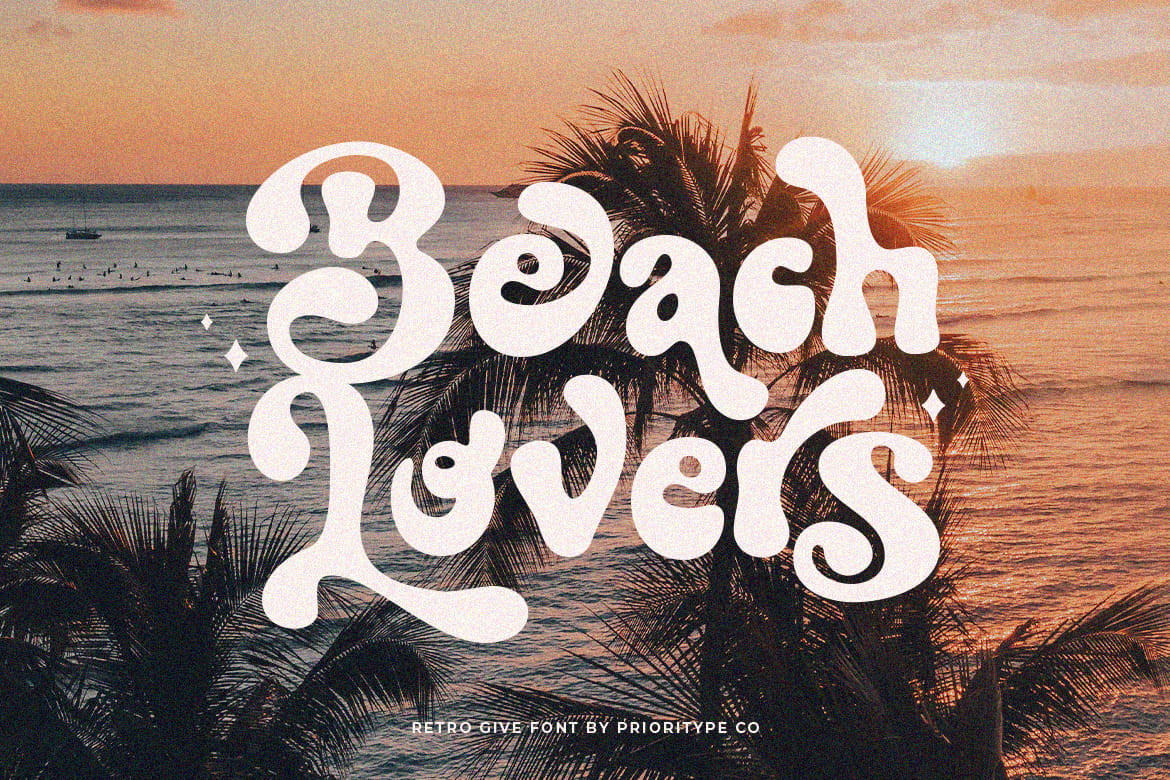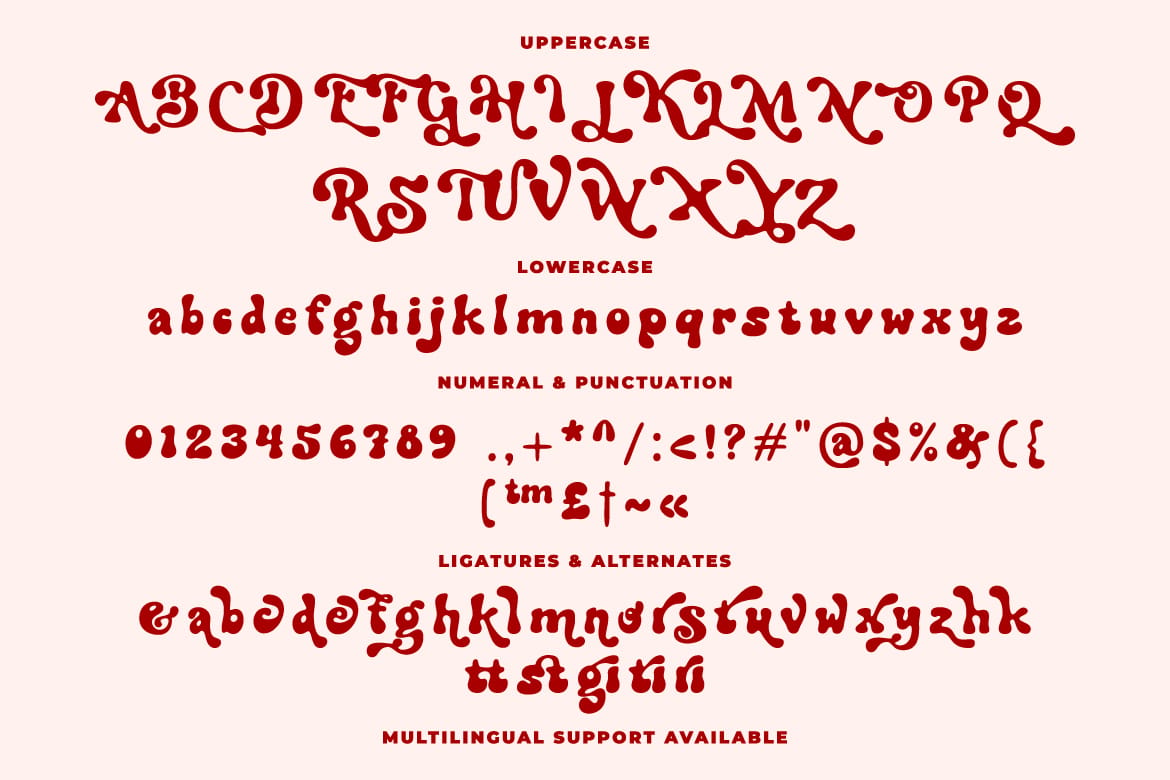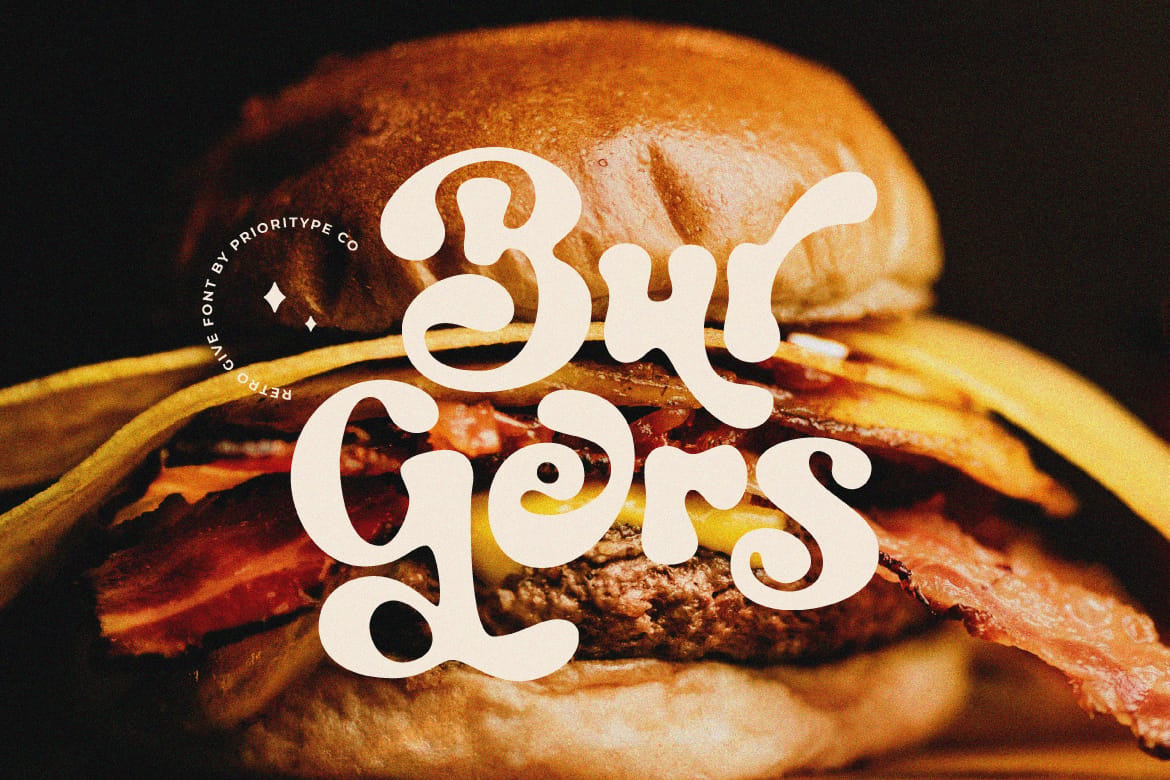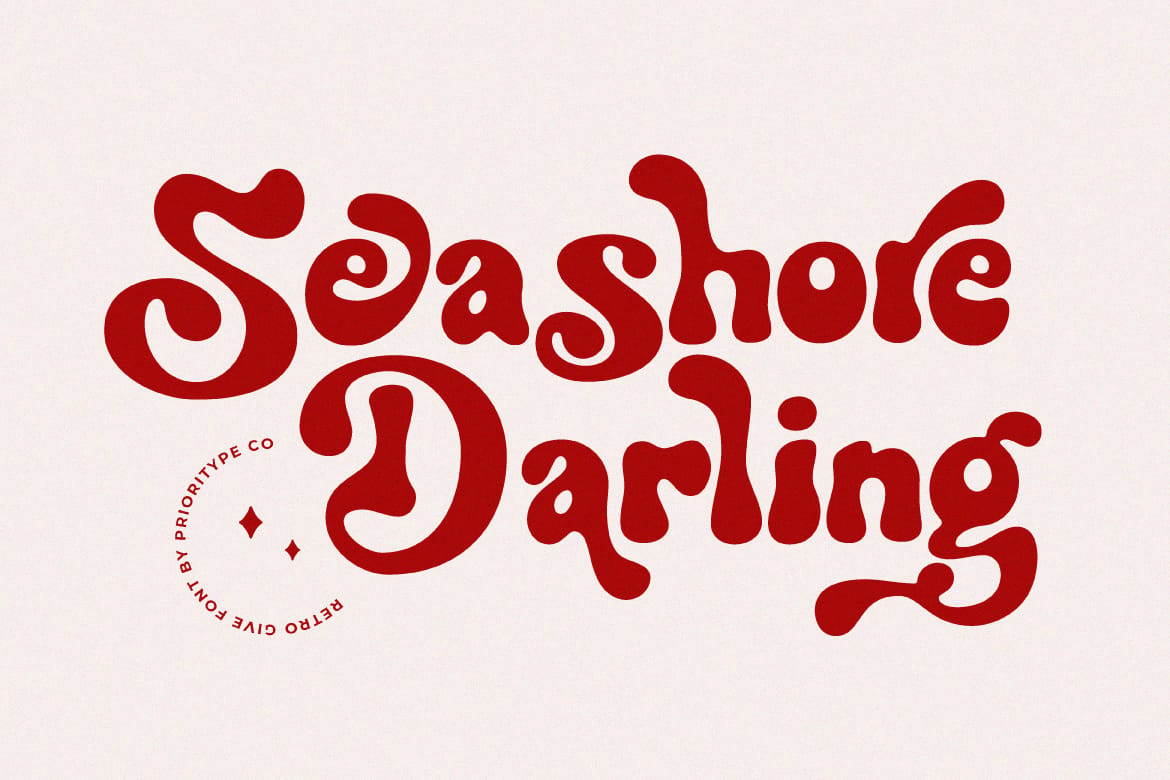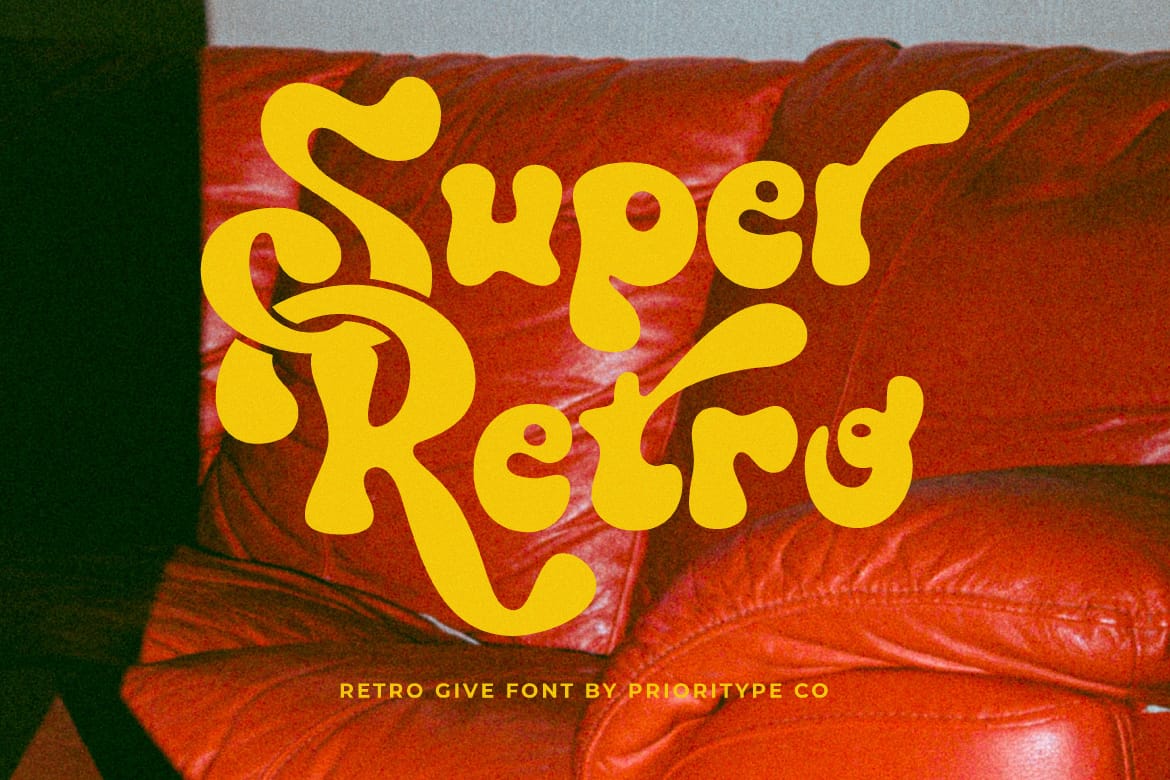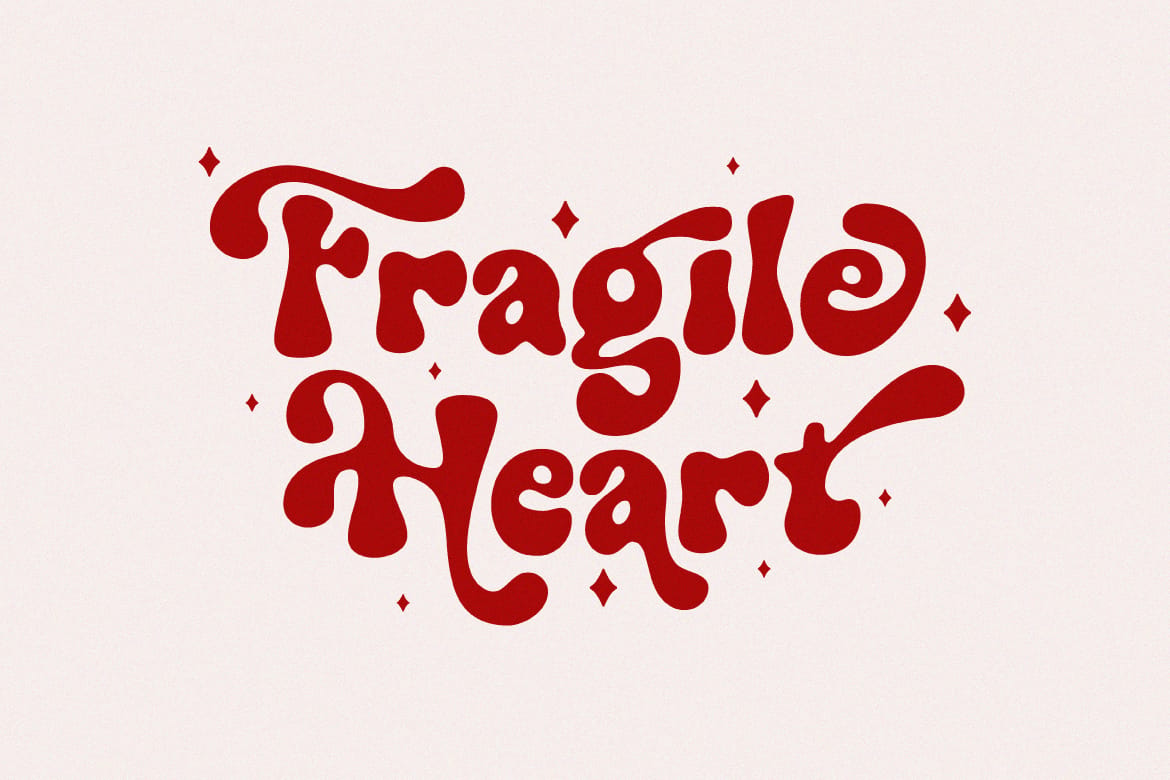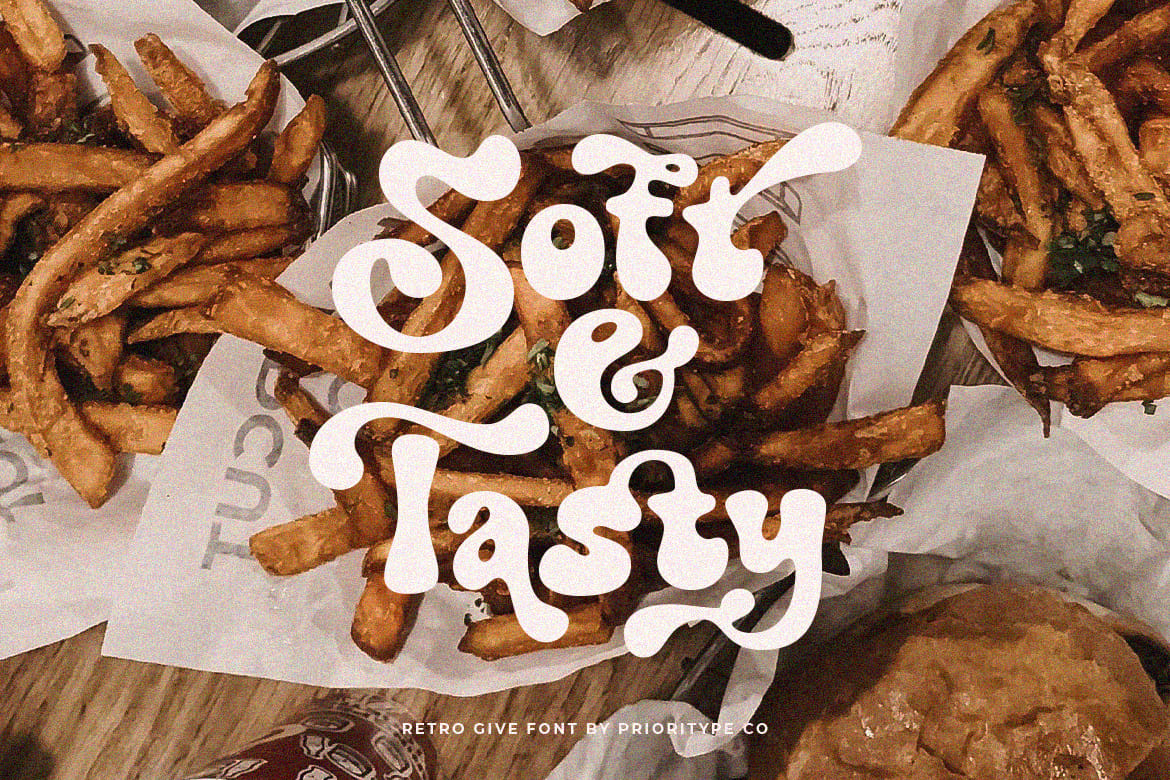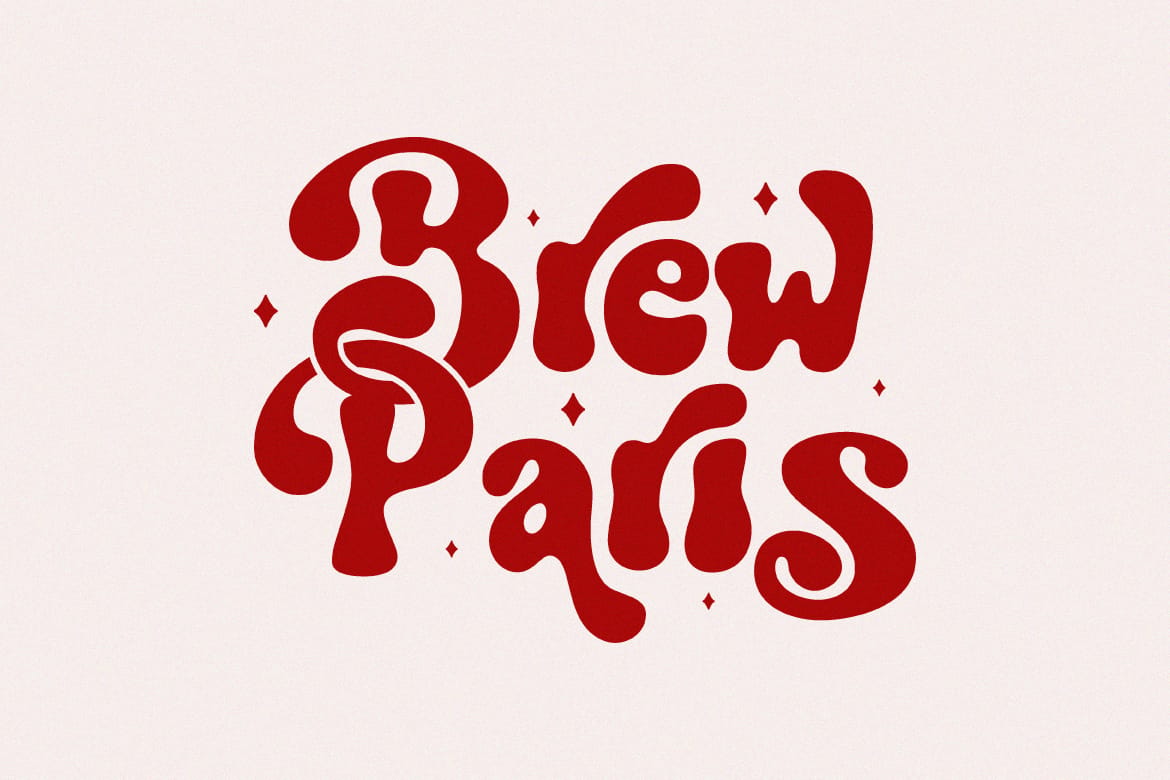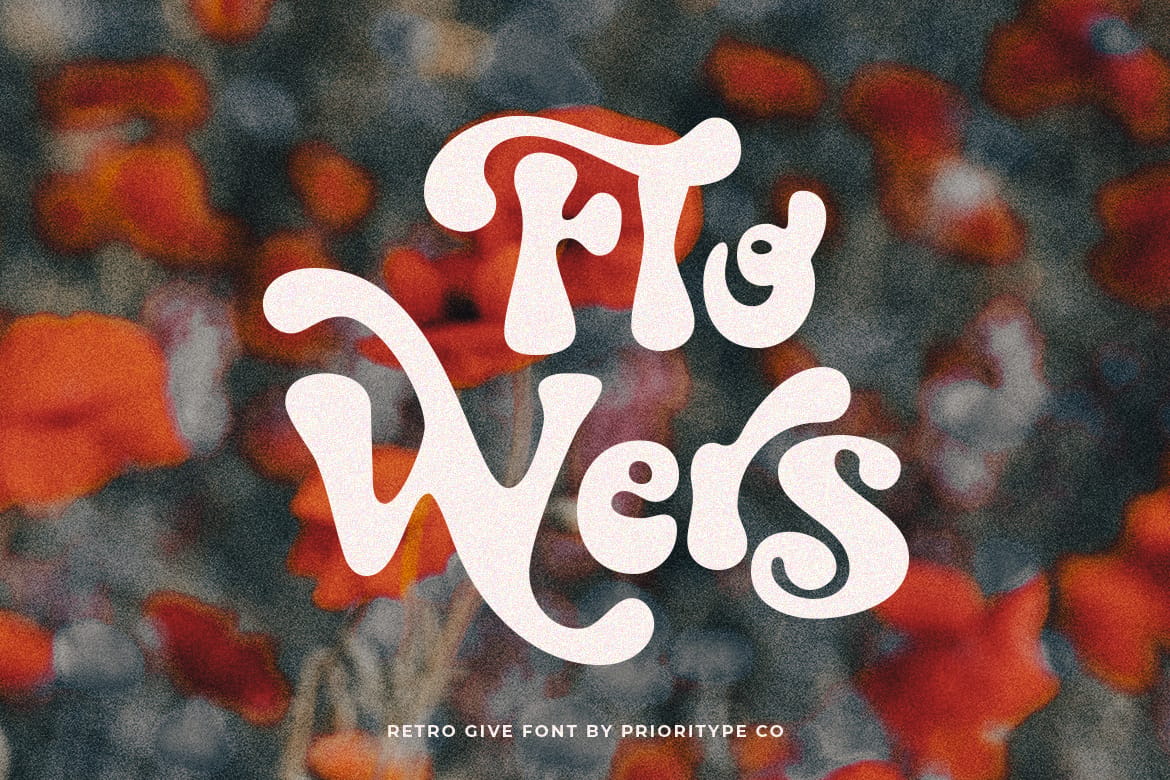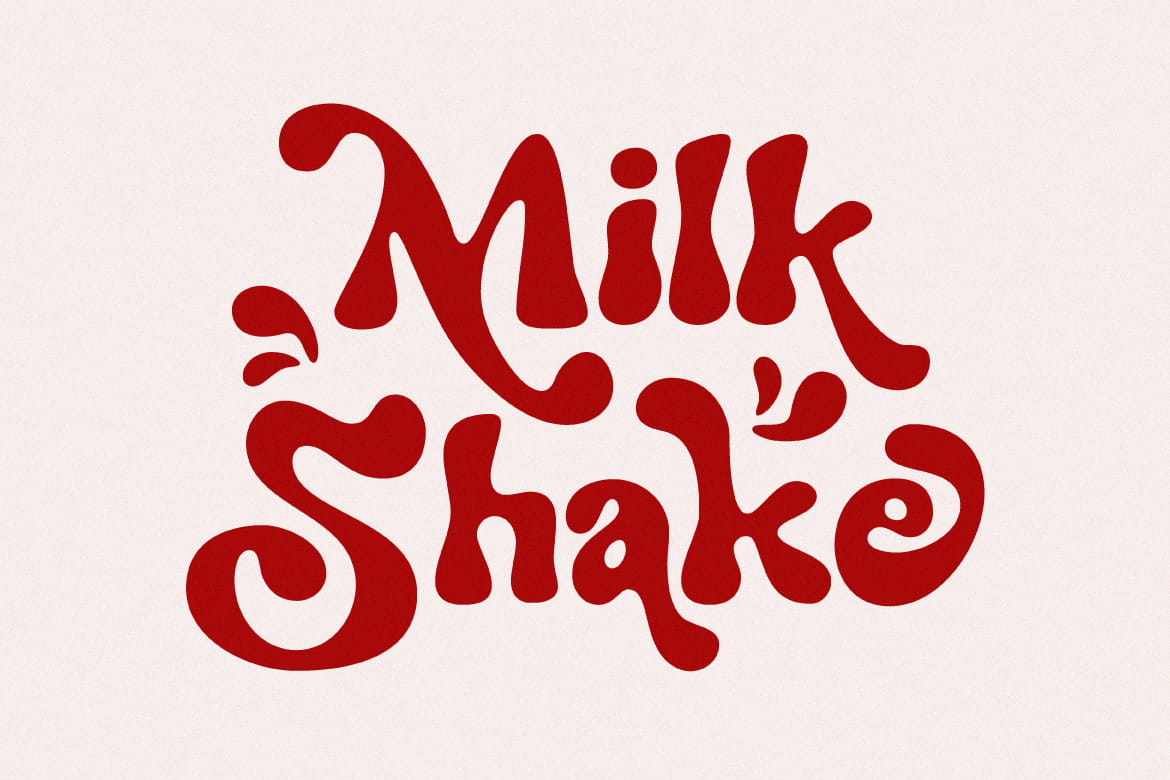
Retro Give - Groovy Display Font
Hand drawn font with fun chubby characters. Equipped with various alternative characters to strengthen your visual design. Suitable for branding designs, logos, social media posts, posters etc. Features: Uppercase, Lowercase, Numeral, Punctuation, Multilingual, Alternates & Ligatures. Obtained file format: Otf, Ttf & Woff.
• Fun chubby hand-drawn characters
• Alternates and ligatures included